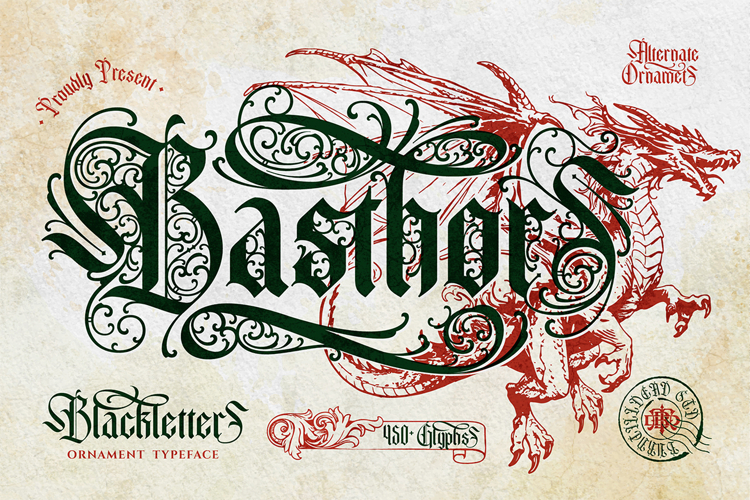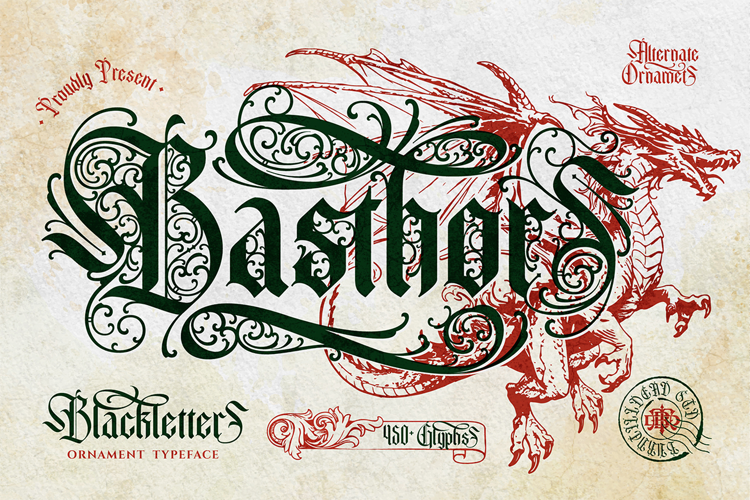
Basthor is a bold blackletter typeface inspired by medieval calligraphy and classic European lettering. Designed with elegant curves and rich ornamental details, this font brings a strong historical character while still feeling stylish and decorative.
The font features dramatic swashes, intricate letterforms, and beautifully crafted alternates that make every word look powerful and unique. It also comes with an ornament style, giving you extra decorative elements that add a vintage medieval touch to your designs.
Basthor is perfect for projects that need a royal, gothic, or medieval atmosphere. Whether you're creating branding, posters, packaging, or fantasy-themed artwork, this font helps your design stand out with a timeless and legendary feel.
With its combination of classic blackletter structure and artistic ornament details, Basthor is a great choice for designers who want to create something bold, elegant, and full of character. Perfect for medieval or fantasy theme design, vintage and gothic branding, poster and editorial titles, packaging and label design, book cover and merchandise, logos and headline typography.
Basthor